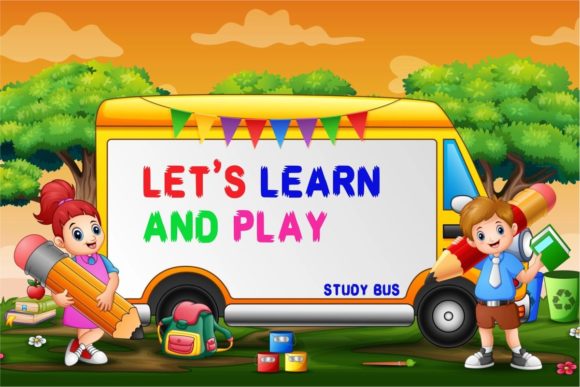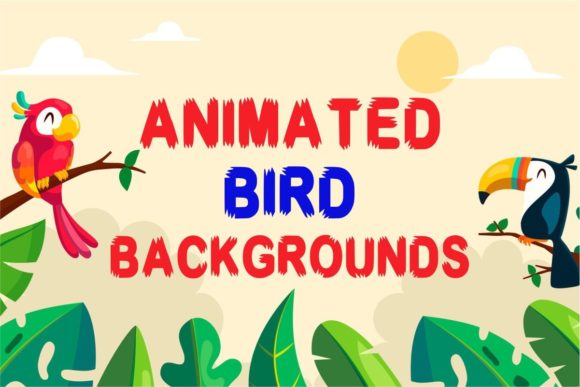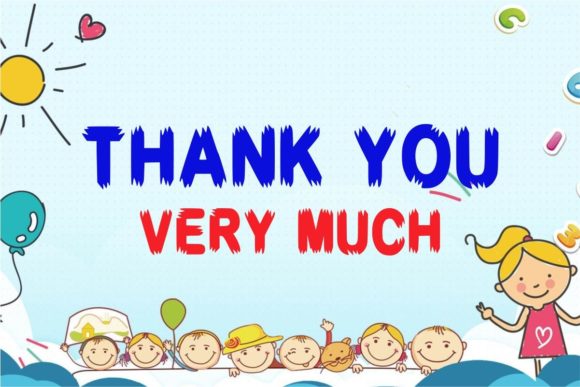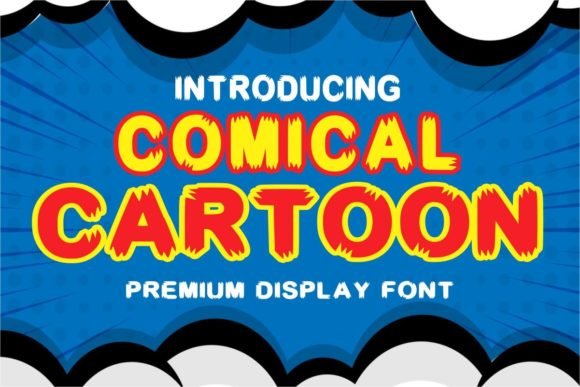
Introduction to Comical Cartoon Font
Comical Cartoon is a modern cartoon-style display font.
Its contemporary style and casual feel will make this font the top choice for any of your creations that require a casual touch Perfect for animated ads, children’s cartoons, t-shirts, labels, posters, and logos.
Key Features of Comical Cartoon Font